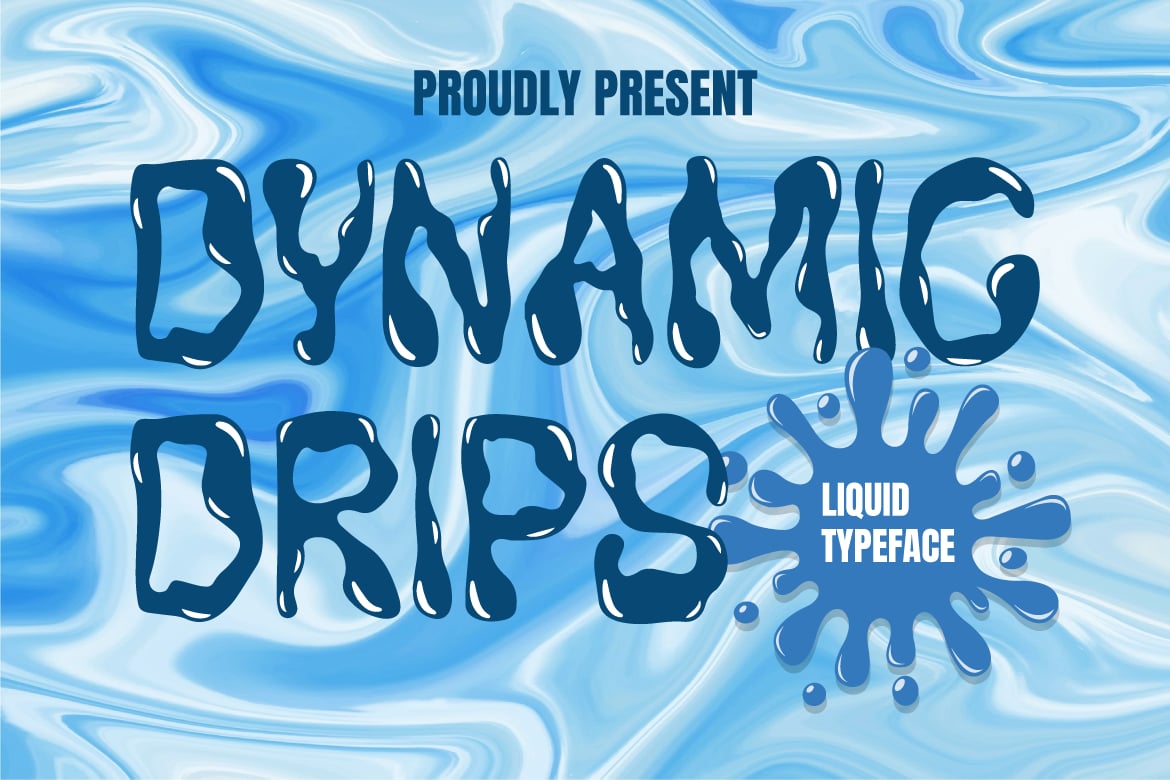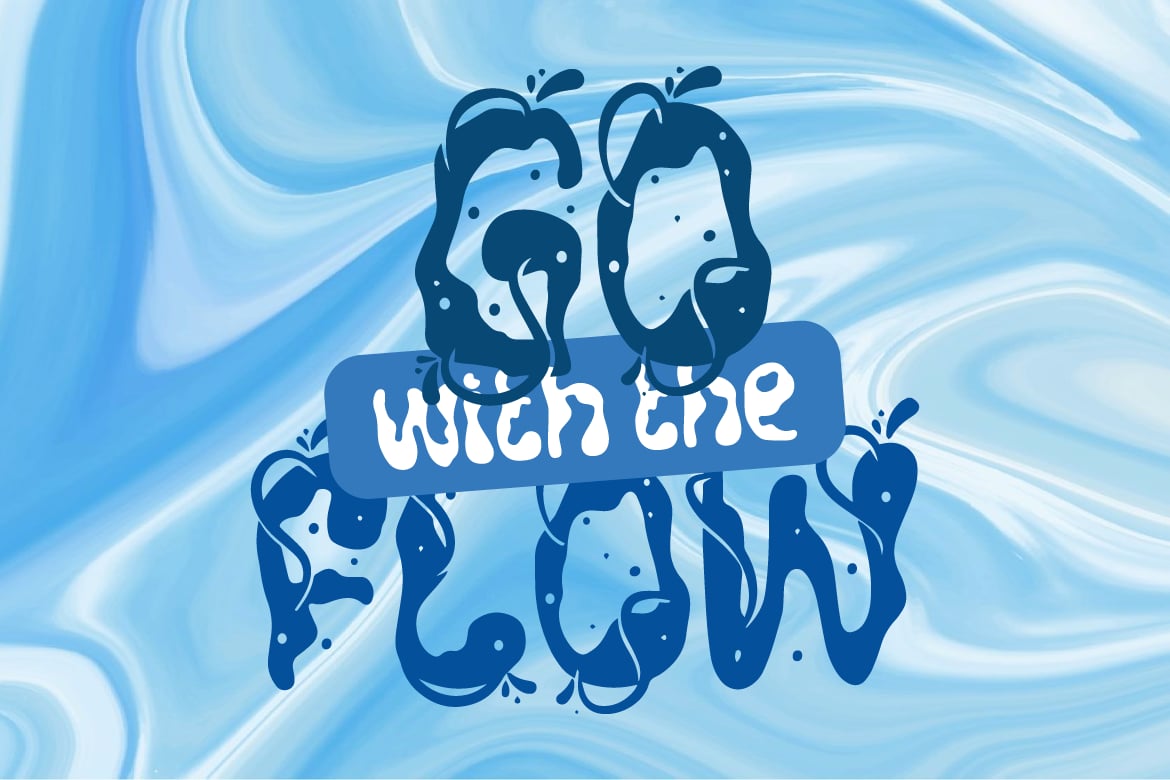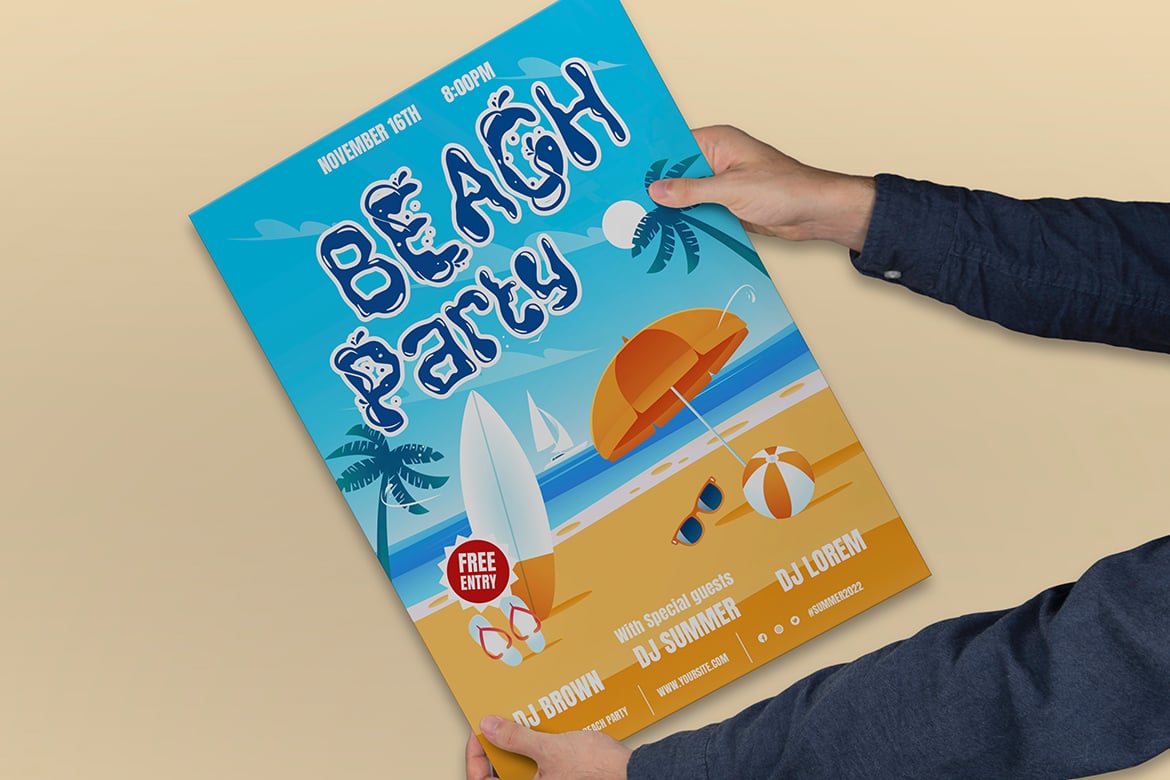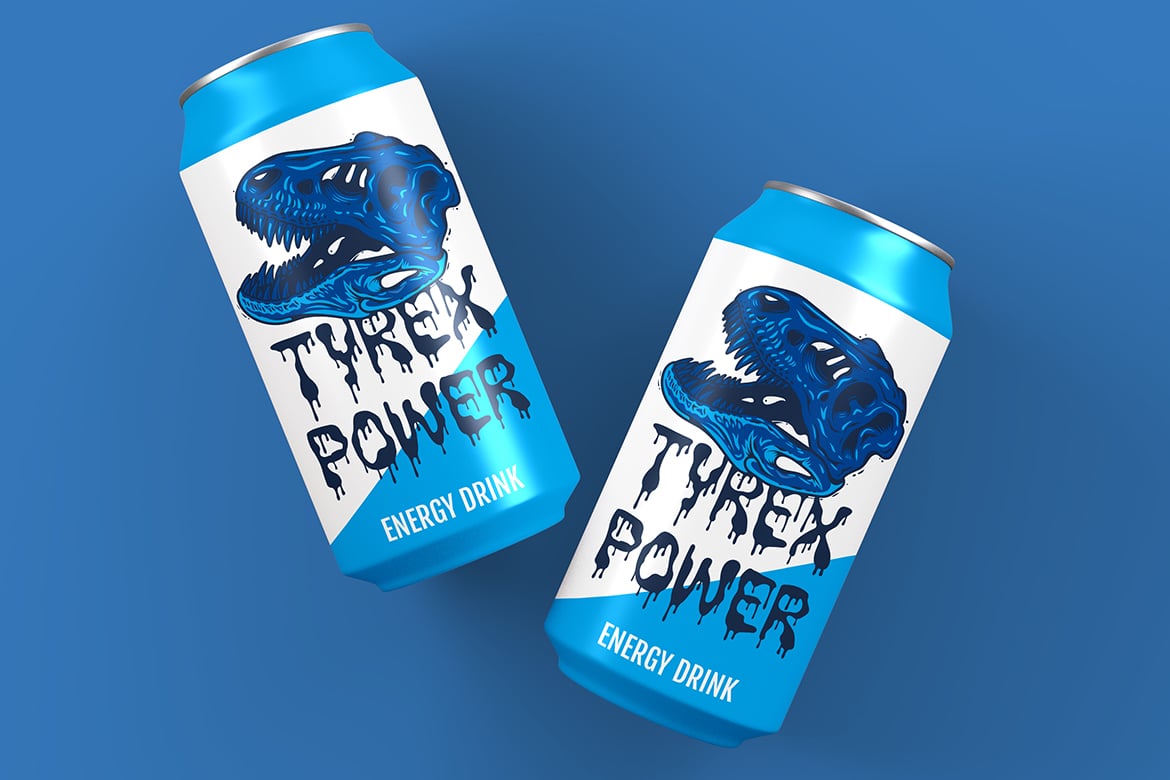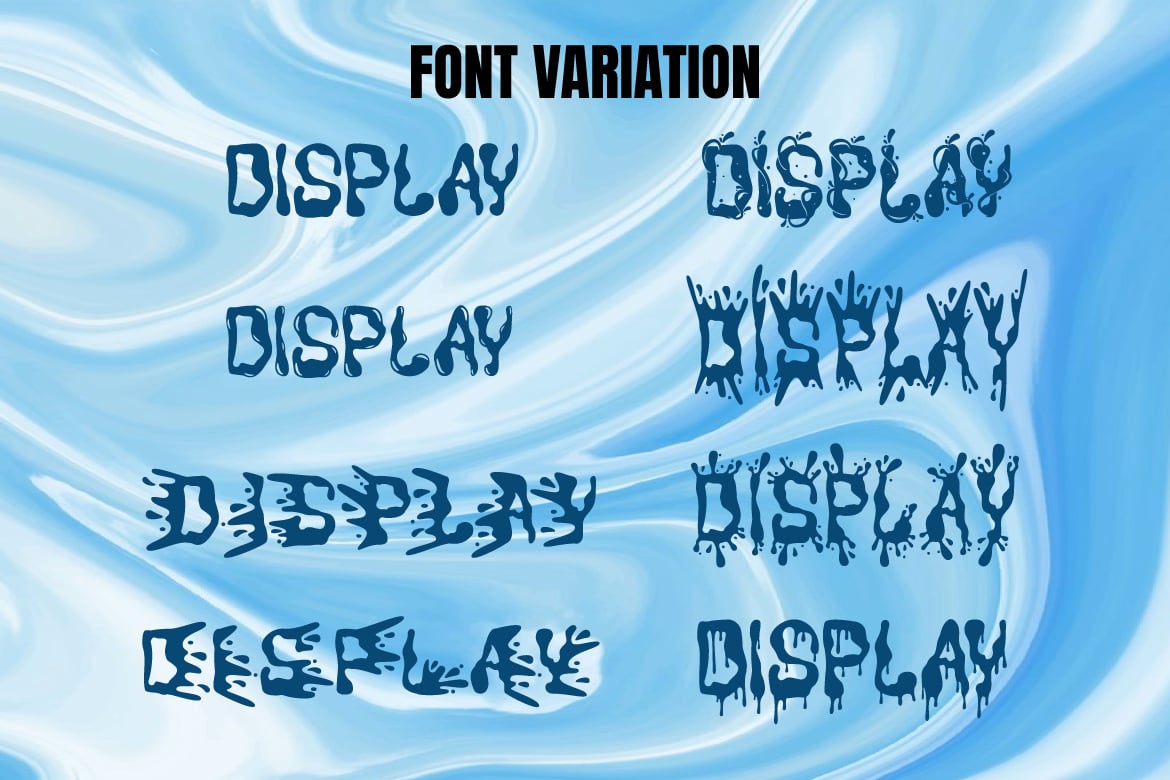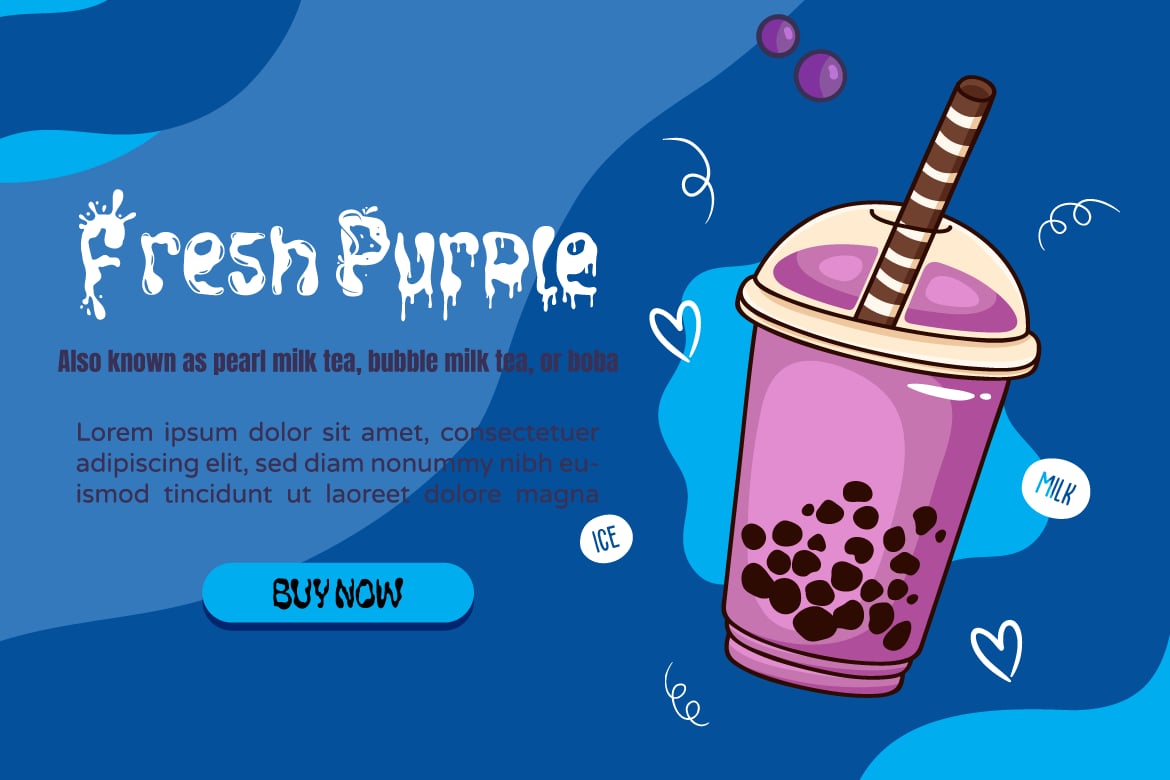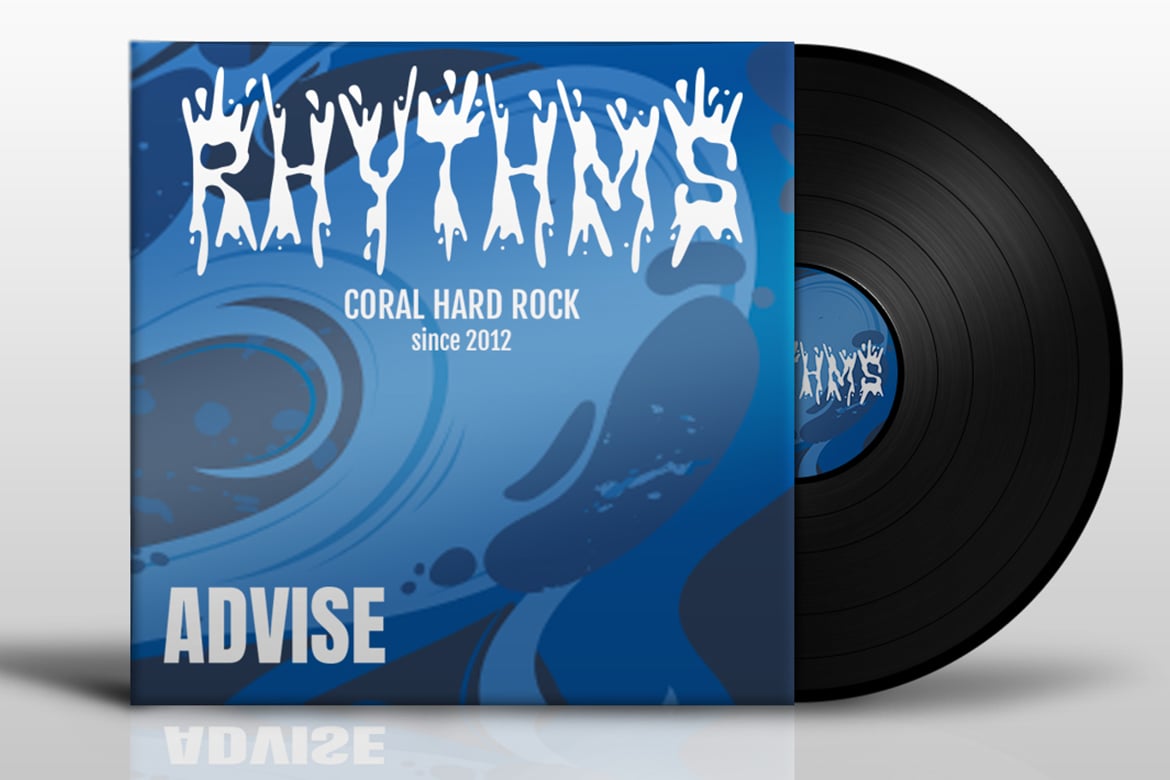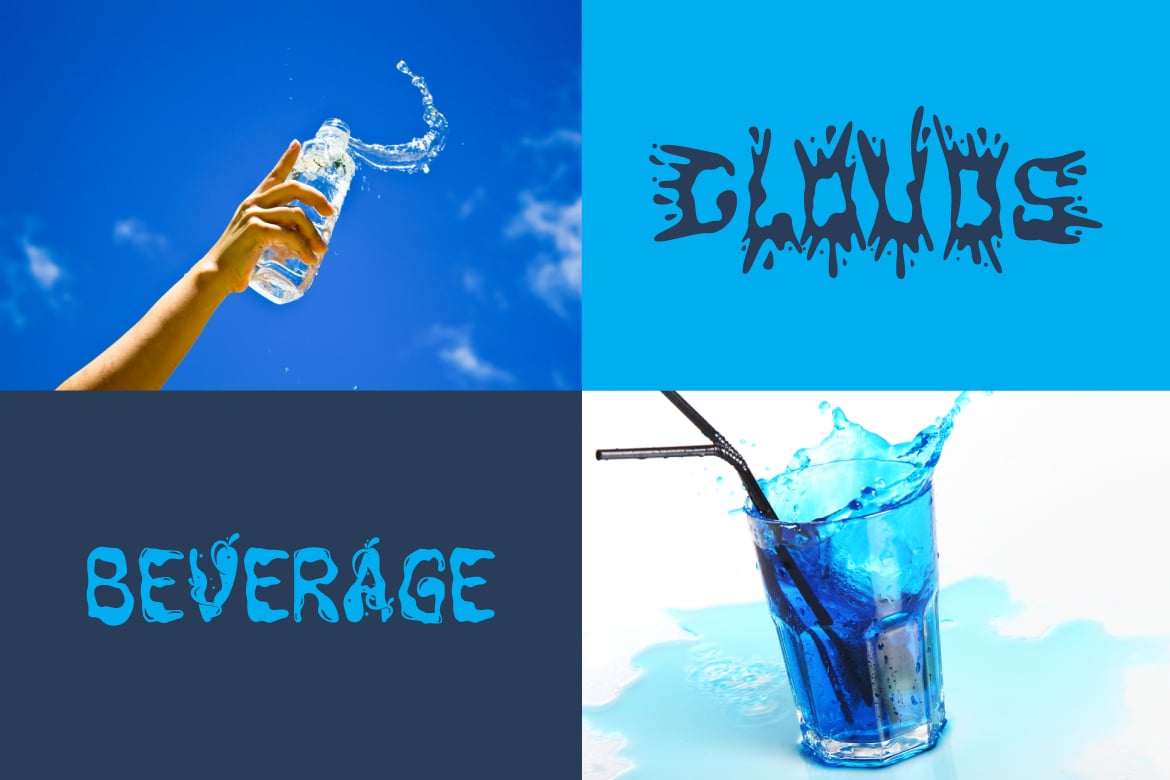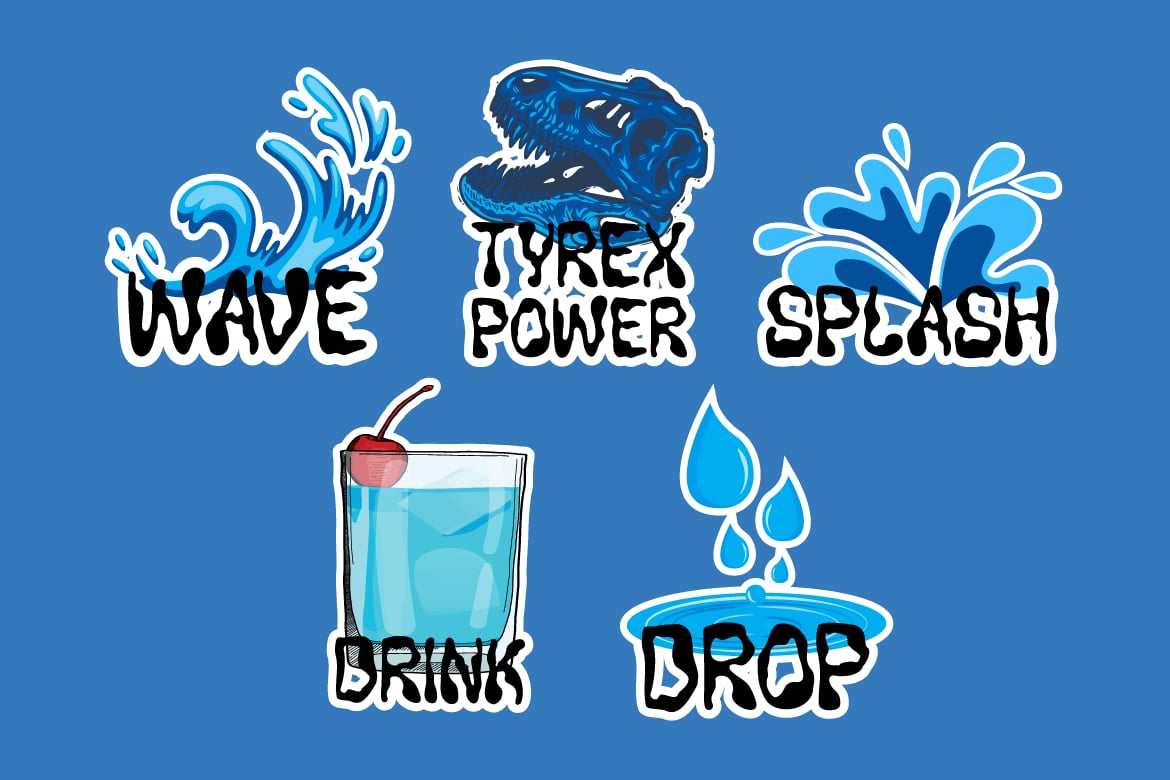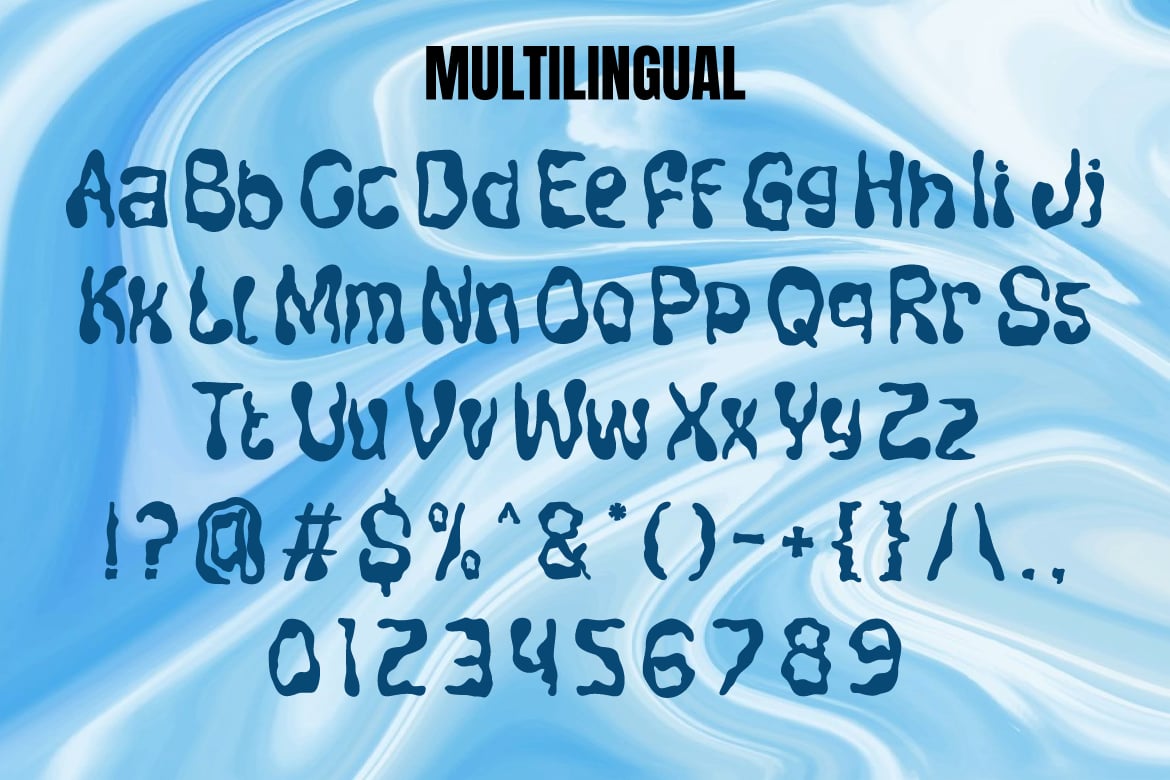
Dynamic Drips – Liquid Display Font Theme
Are you looking for a font that captures the essence of liquid and water? Do you want to add some splashy flair to your designs? If so, you will love Dynamic Drips – Liquid Display Font Theme!
Dynamic Drips is a display font that features quirky letters with fluid and spontaneous shapes. Each letter is designed to resemble the movement and texture of water, making it an excellent choice for a variety of creative projects. The font’s liquid theme is accentuated by its splash-like characters, reminiscent of waves crashing on a beach or droplets of rain splattering on a window.
Dynamic Drips is not just a font; it’s an experience that caters to crafters, children’s book illustrators, and designers aiming for a fun and playful vibe. You can use it for logos, branding, children-themed events, crafting projects, invitations cards – this font elevates every design it graces.